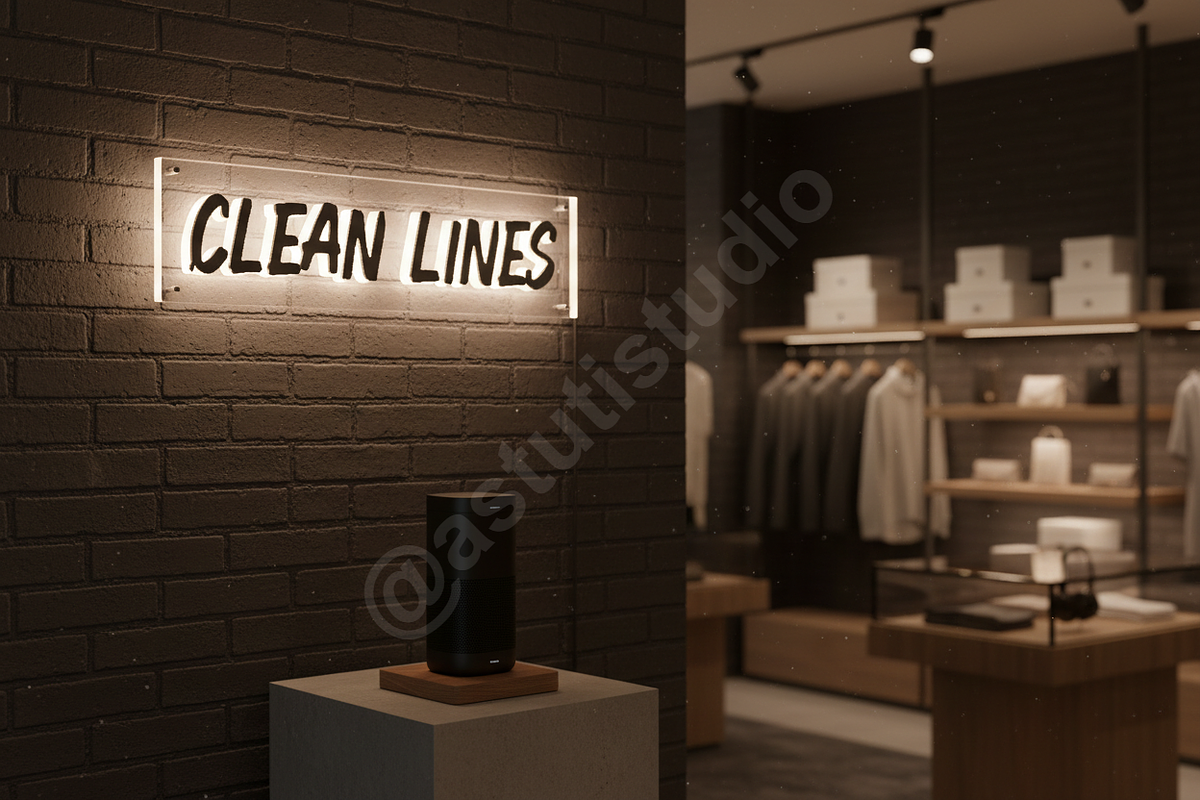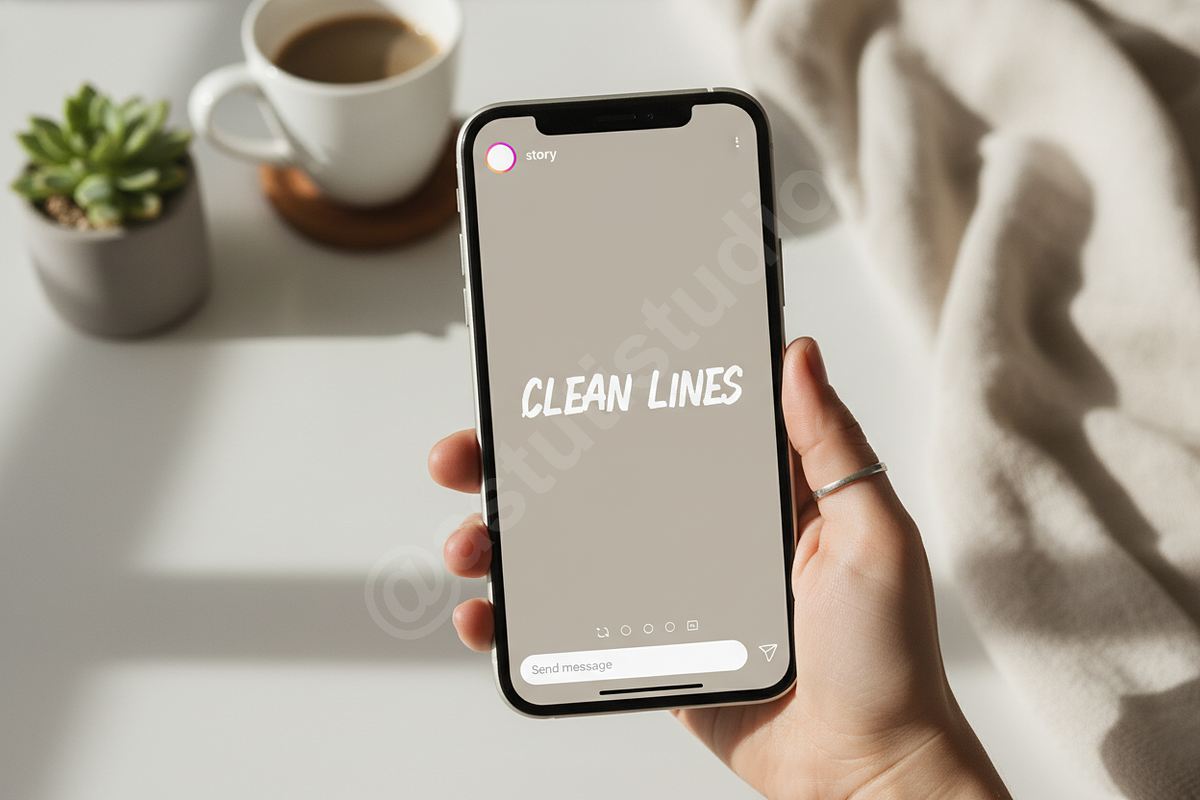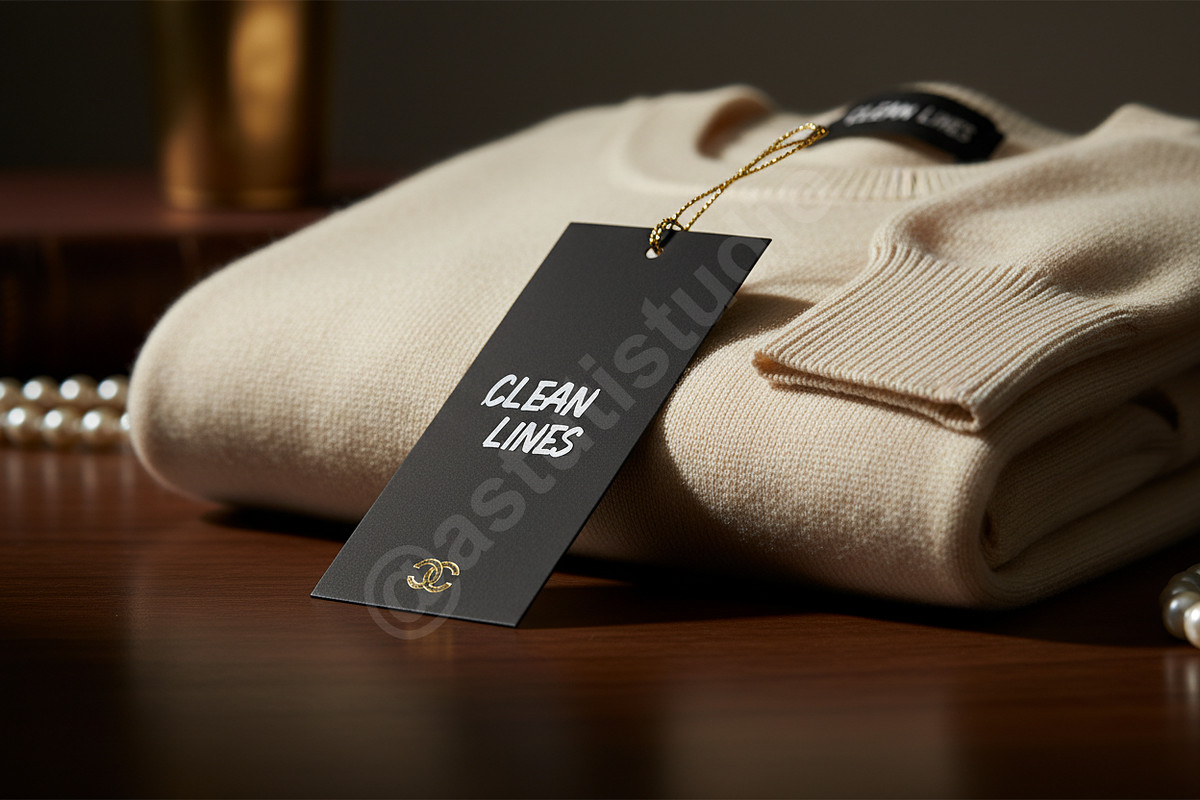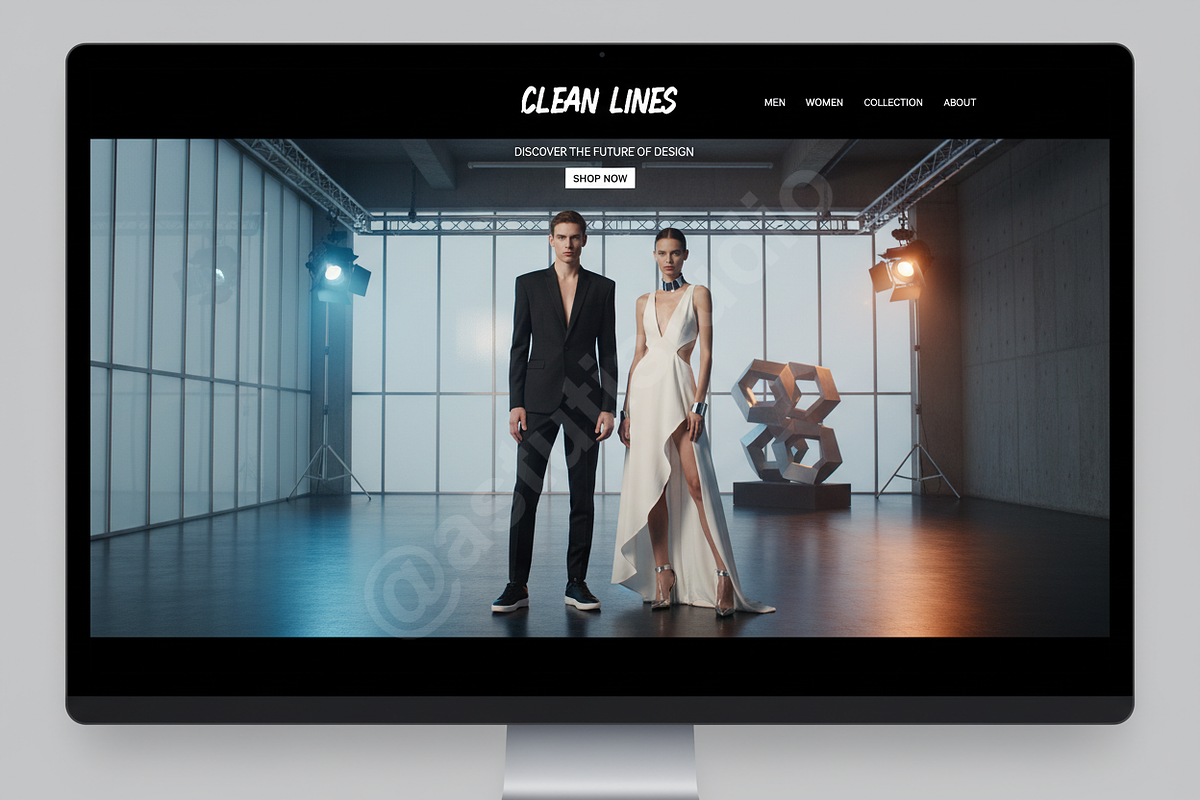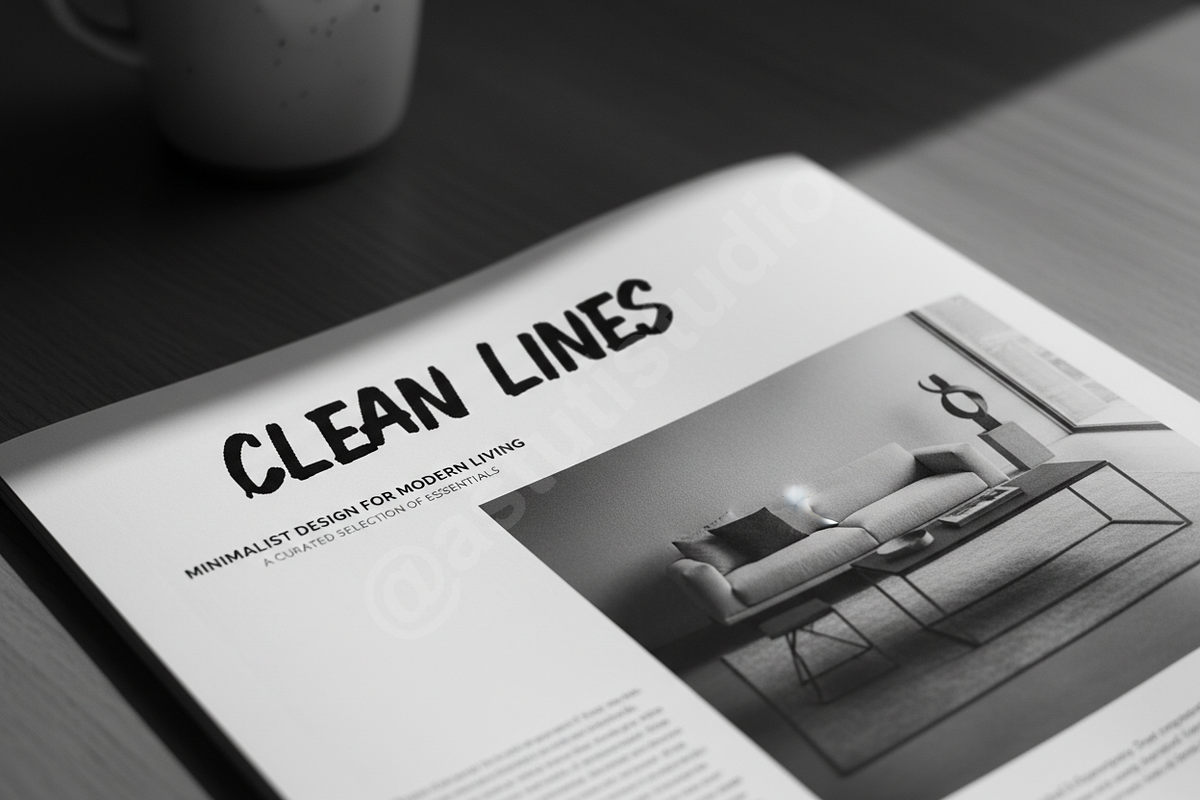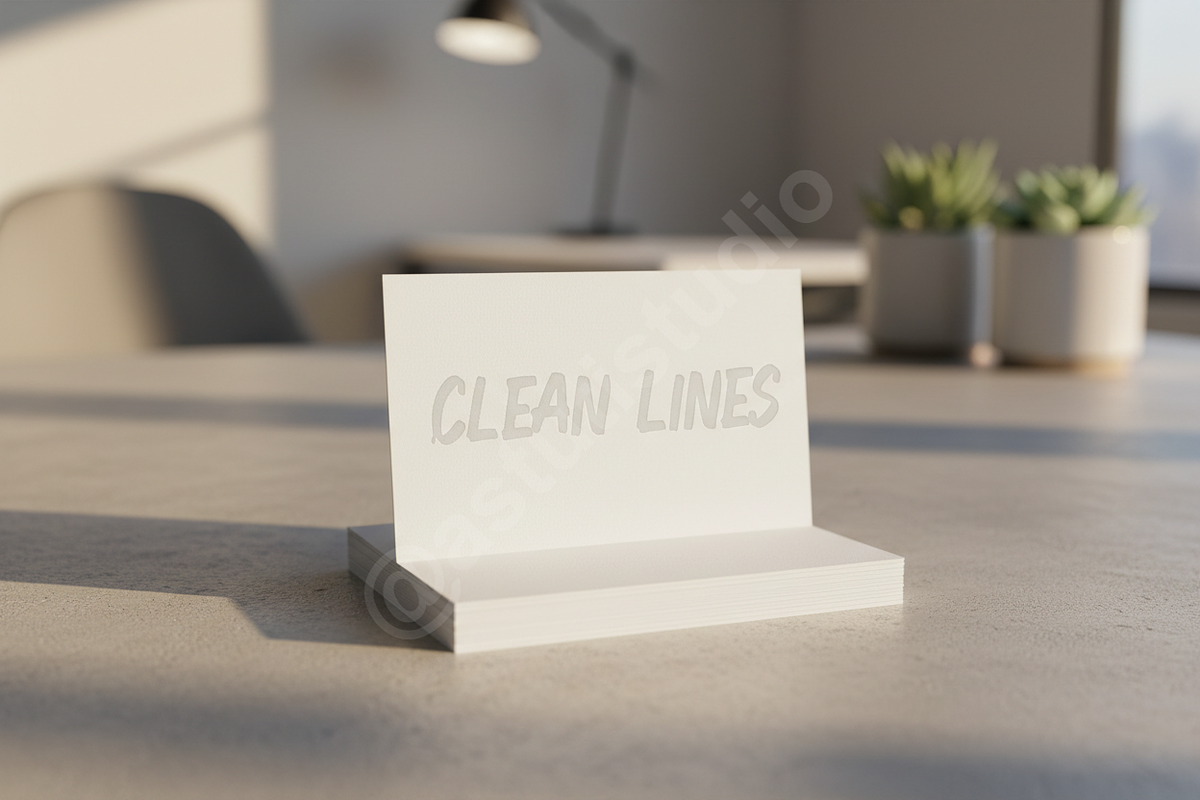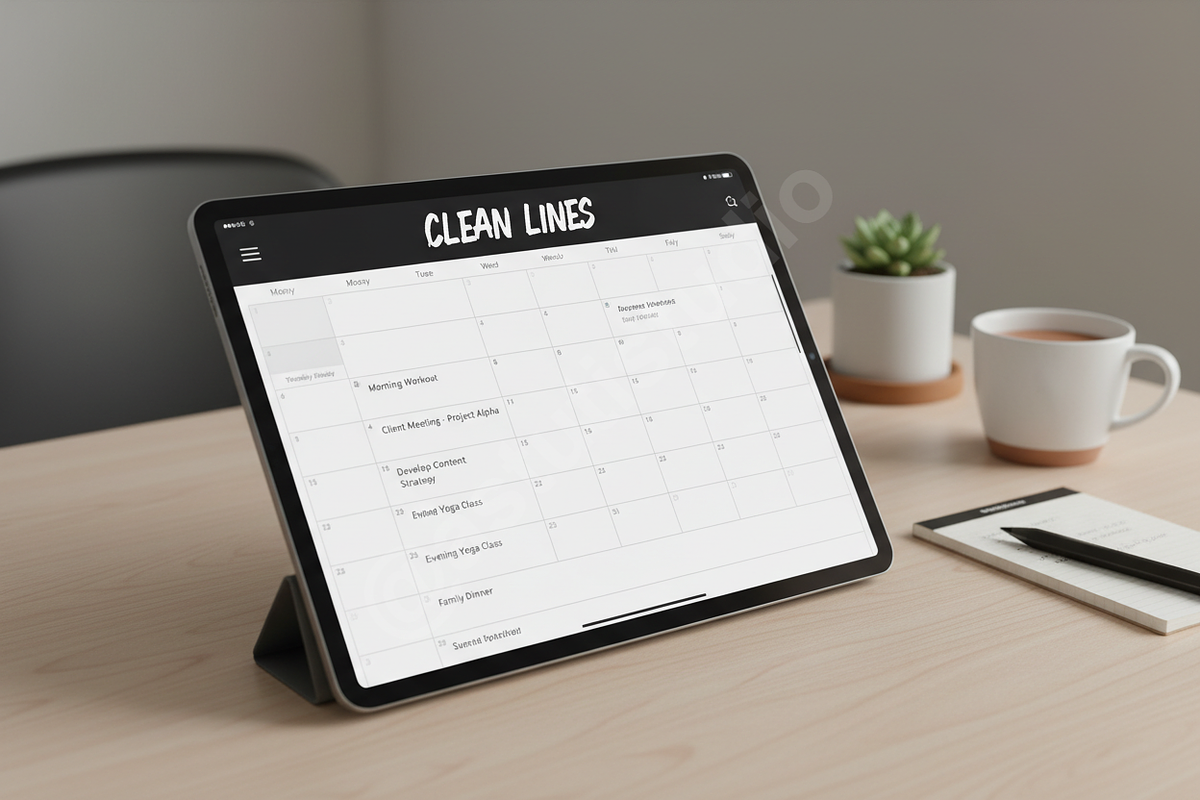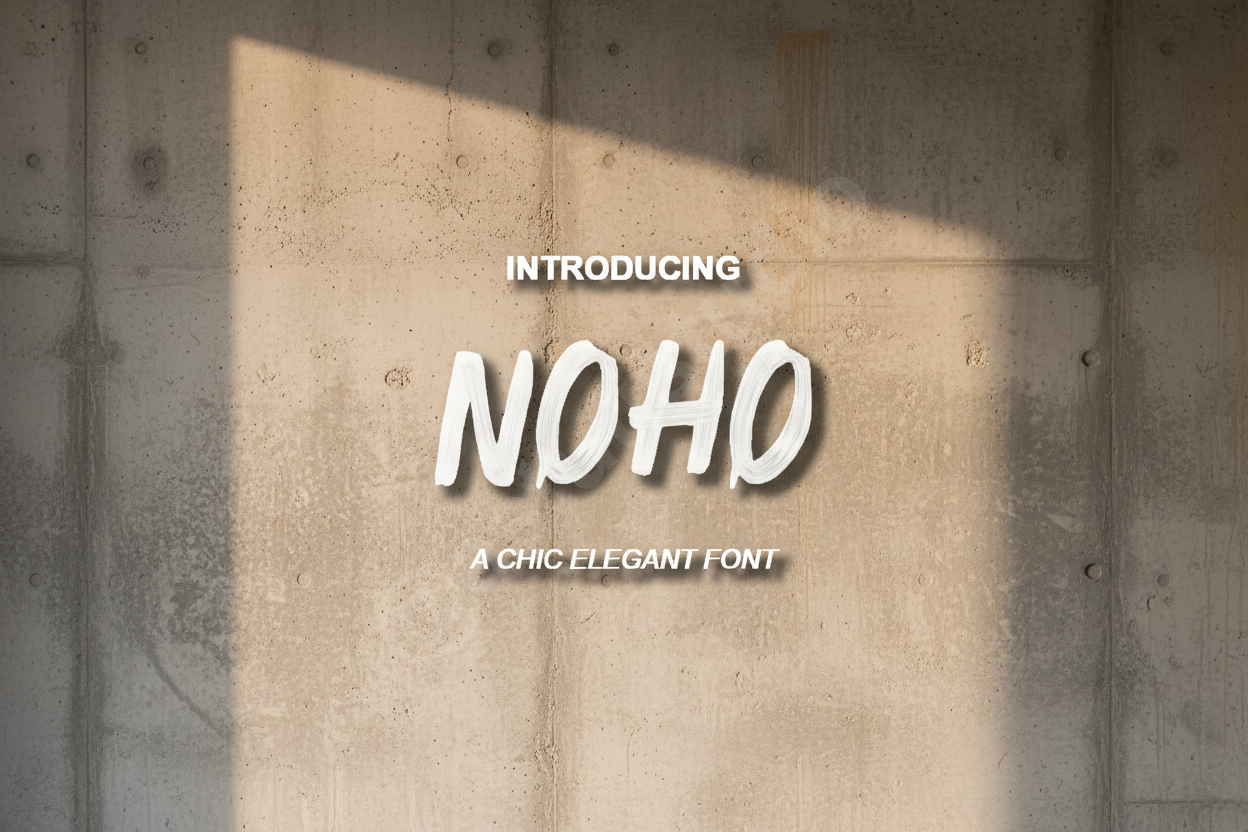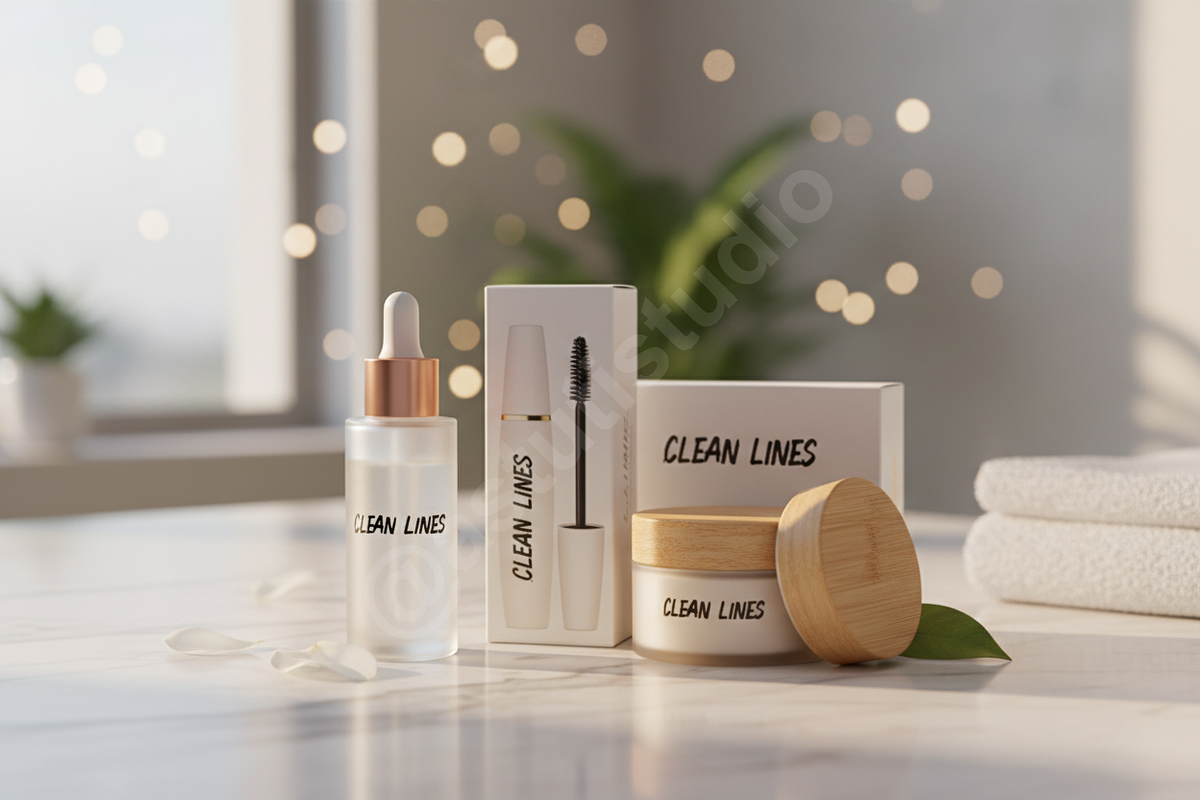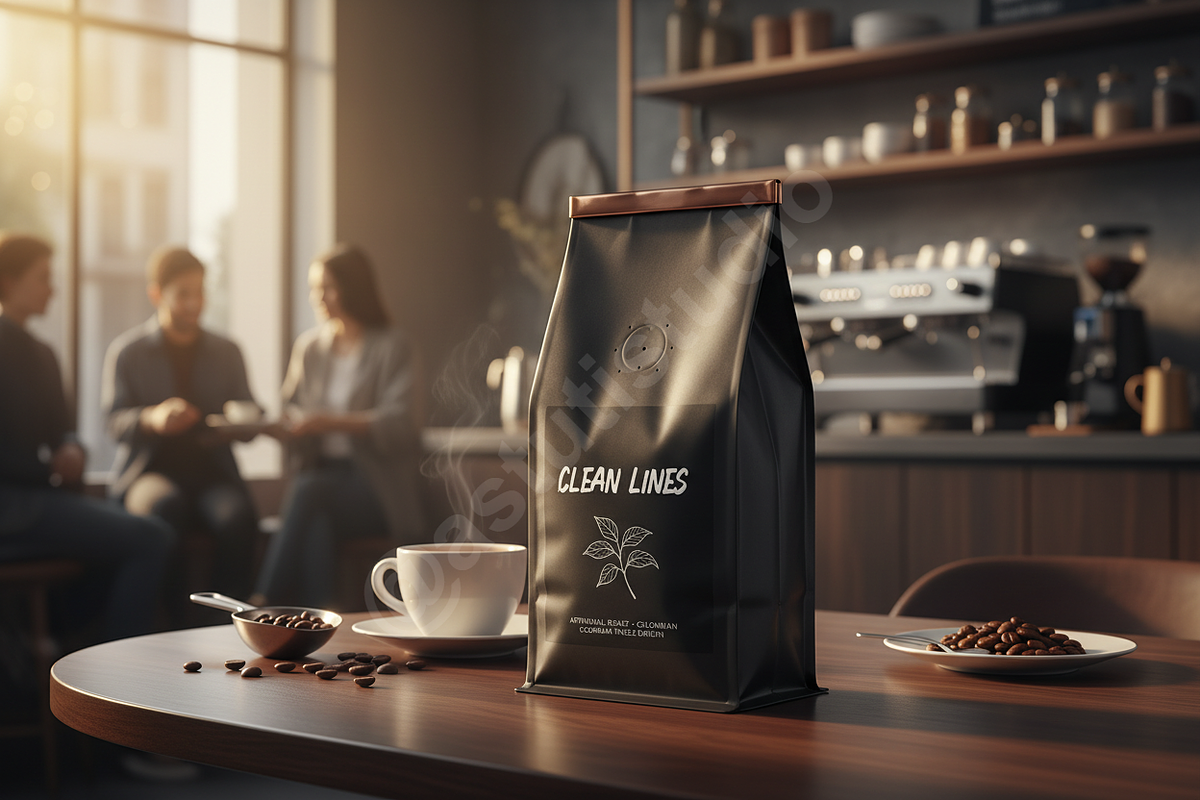
Noho | Modern Luxury Serif Font
NOHO | A SOPHISTICATED STUDIO SERIF
Noho is a meticulously crafted serif typeface designed for the high-end aesthetic. Balancing sharp, refined lines with graceful curves, it embodies the spirit of premium studio design. This font was created for designers who require a blend of timeless elegance and contemporary flair, ensuring your projects stand out with a polished, professional finish.
PERFECT FOR
- Luxury Branding and Visual Identity
- Editorial Design and Magazine Layouts
- Sophisticated Social Media Content
- High-end Packaging and Print
- Minimalist Website Headers and Digital Experiences
- Complete Alphabet: Upper and Lowercase characters
- Custom Ligatures: Enhance your typography with unique character pairings
- Full Numeric Set: Comprehensive numbers and punctuation
- Multilingual Support: Extensive character set for global reach
- Optimized Kerning: Professional spacing for a balanced look